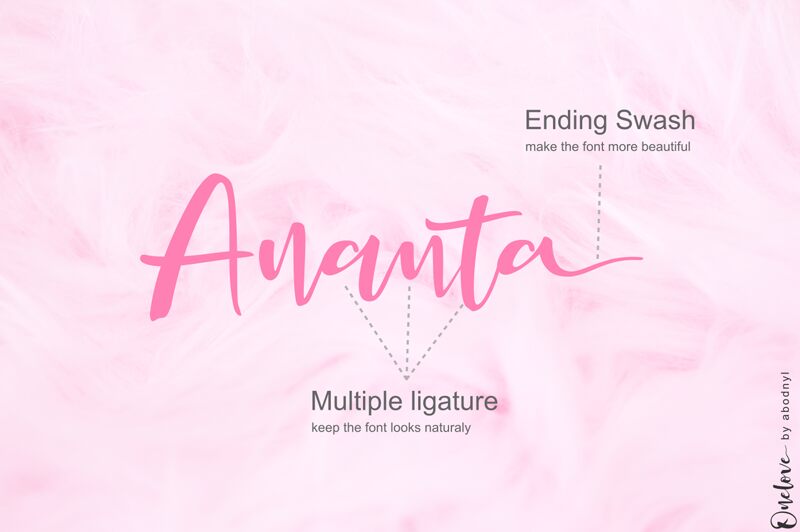
Onelove is a captivating brush font designed by Abo Daniel. Its flowing, organic strokes convey a sense of warmth and fluidity, making it an excellent choice for a range of design applications. The font's distinctive, expressive character lends itself beautifully to branding, packaging, and editorial projects, where a touch of handcrafted elegance is desired. Onelove's versatility extends beyond these realms, as its bold, attention-grabbing aesthetic can also be leveraged in headline, poster, and social media designs.
The font's unique personality and adaptability make it a valuable asset for designers seeking to elevate their projects with a touch of artisanal flair.